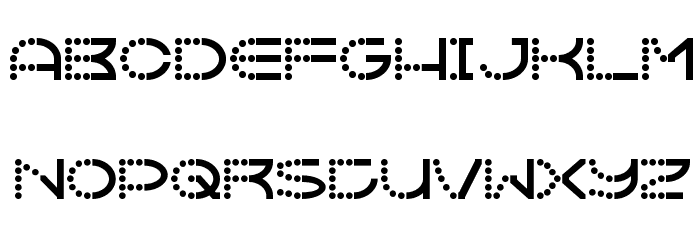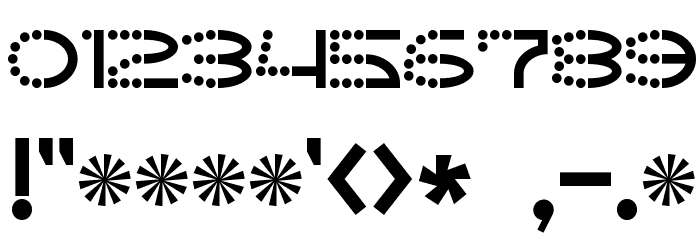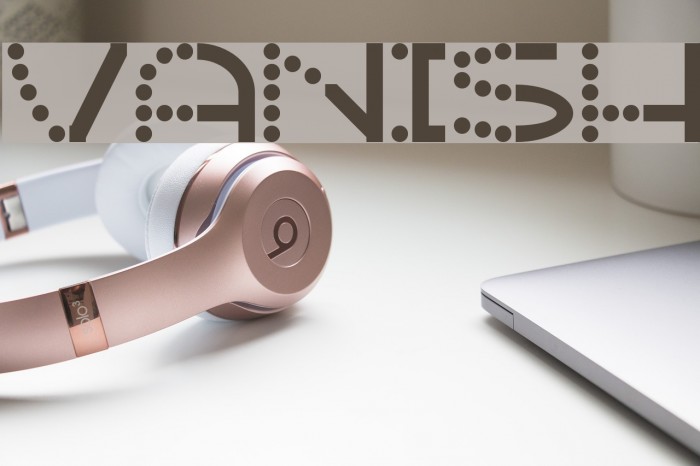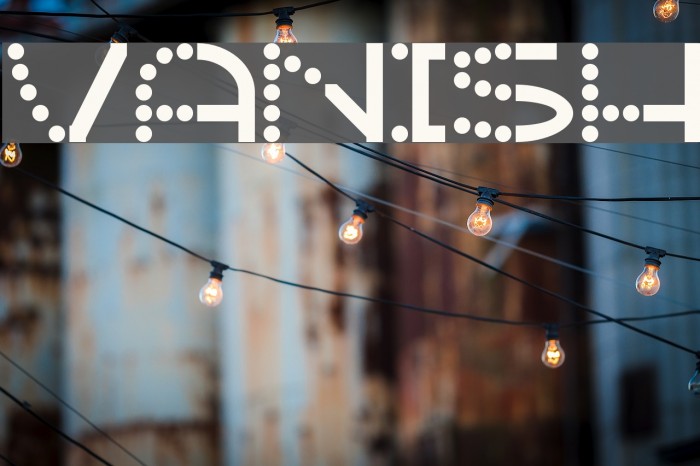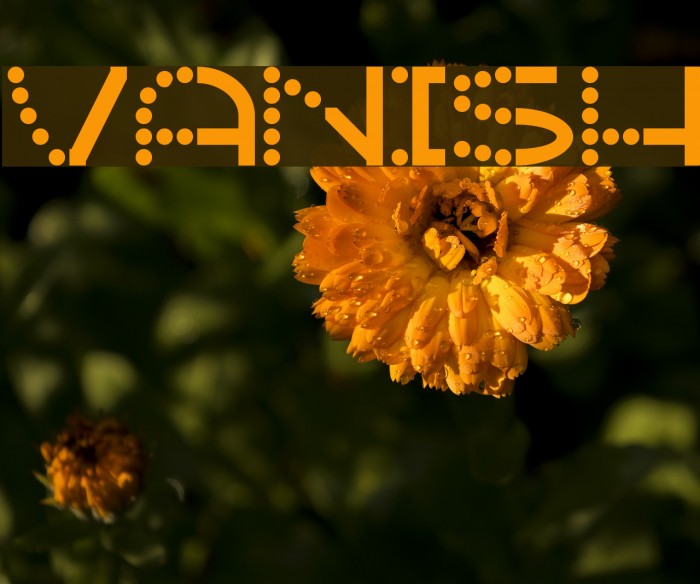
Vanish Font
This font features a unique dotted design, where each character is composed of a series of evenly spaced dots forming the outlines of letters and numbers. The style is modern and eye-catching, making it suitable for creative and artistic projects. The uppercase and lowercase letters maintain a consistent pattern, with the dots providing a sense of rhythm and movement. Numbers and special characters follow the same dotted motif, ensuring uniformity across the font. The overall appearance is playful yet structured, offering a distinctive look that stands out.
A modern, dotted font with a playful and structured design.
- Proposed Projects: Ideal for creative projects such as posters, logos, and digital art where a unique and modern aesthetic is desired.
- Use Case: Logos, Posters, Digital Art